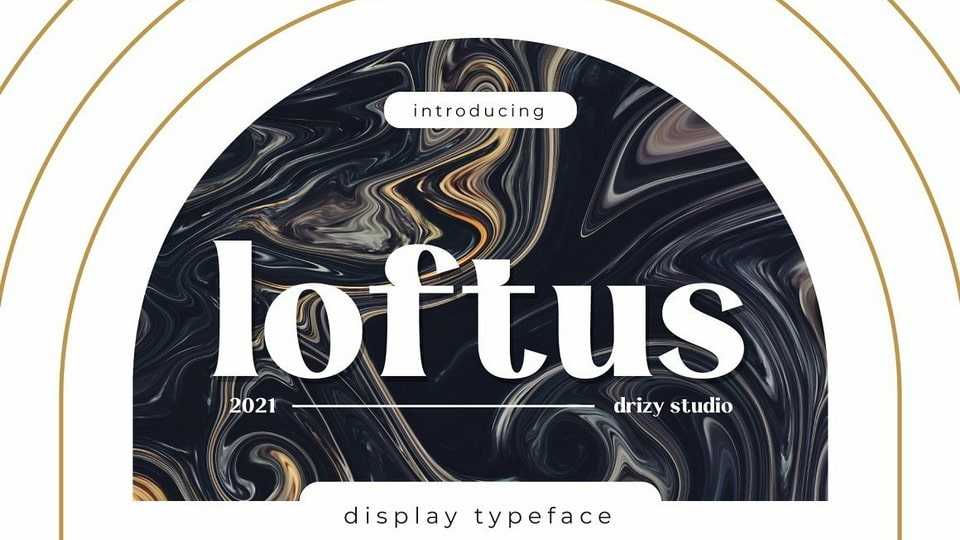
Download Loftus font, a special serif typeface for modern unique design look, offering all the basic styles you will need for a successful project. Loftus will look stunning on posters, packaging, magazines or print.
Designer: Drizy Studio